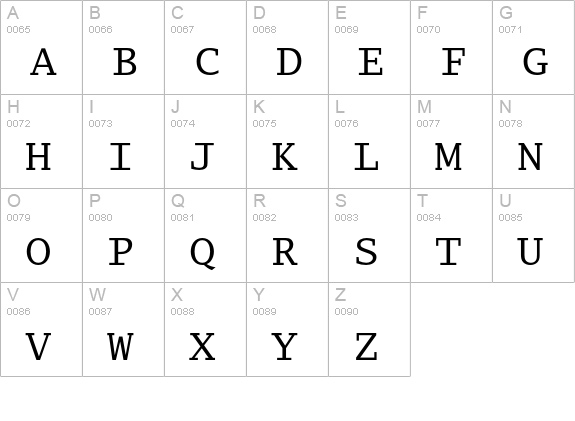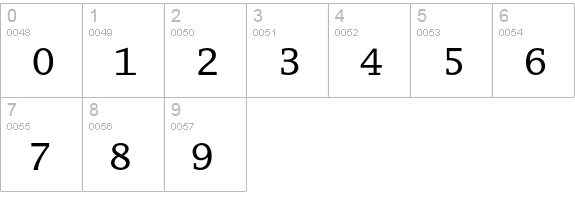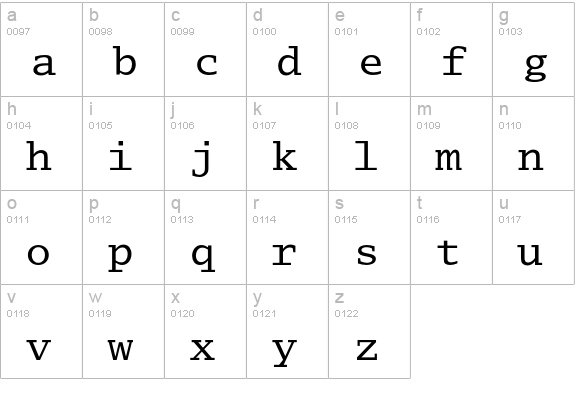
LucidaTypewriterEF-Regular is the standard, neutral variant in the LucidaTypewriterEF typeface family \xE2\x80\x94 well suited to general body text, paragraphs, and standard typographic work.
LucidaTypewriterEF-Regular is a classic and versatile monospaced font that exudes a sense of simplicity and professionalism. With its clean lines and balanced proportions, this font is perfect for a wide range of design projects, including coding, writing, and graphic design. One of the best features of LucidaTypewriterEF-Regular is that it is freely available to download at FontsMarket.com. This means that you can easily access and use this high-quality font for personal and commercial projects without any restrictions. Whether you're creating a website, designing a logo, or crafting a resume, LucidaTypewriterEF-Regular is a reliable choice that will help you achieve a polished and professional look.